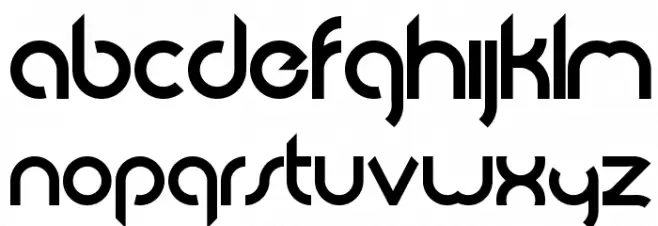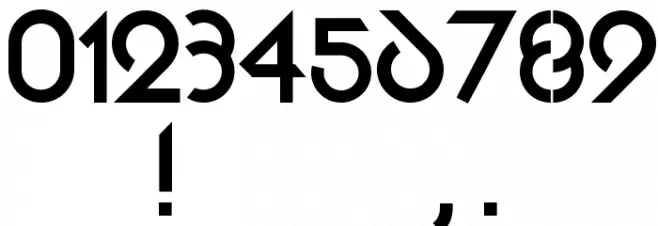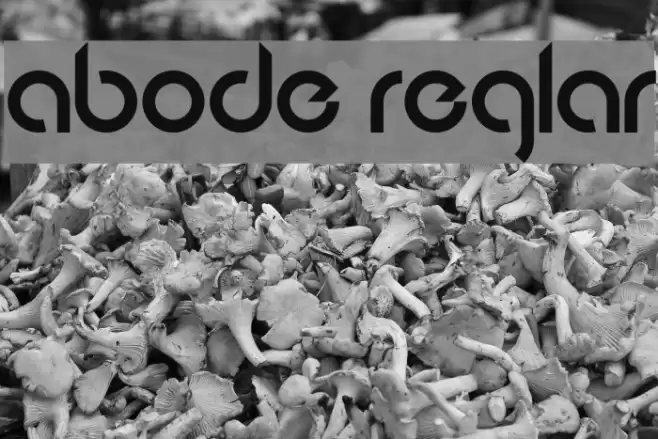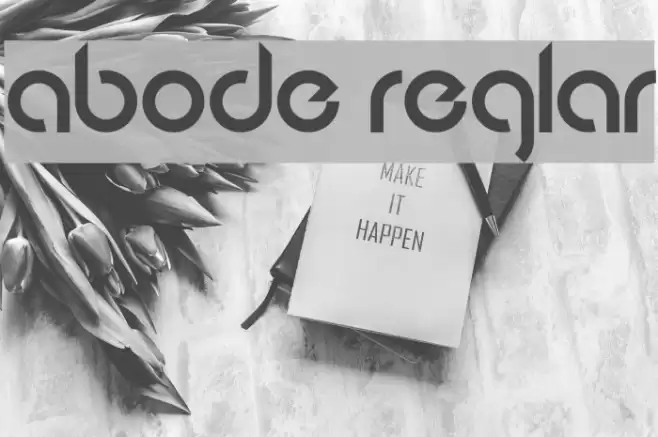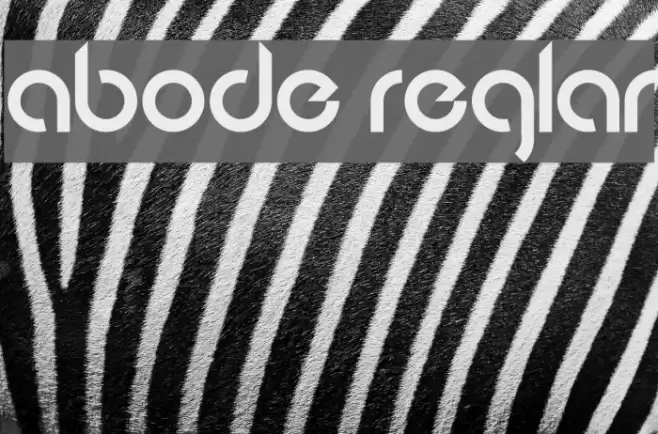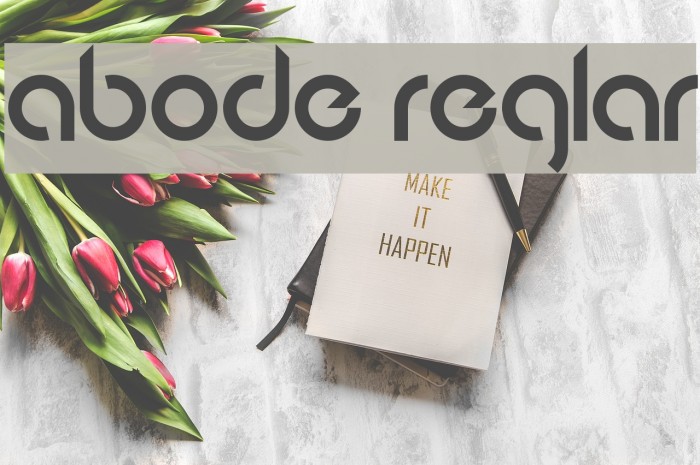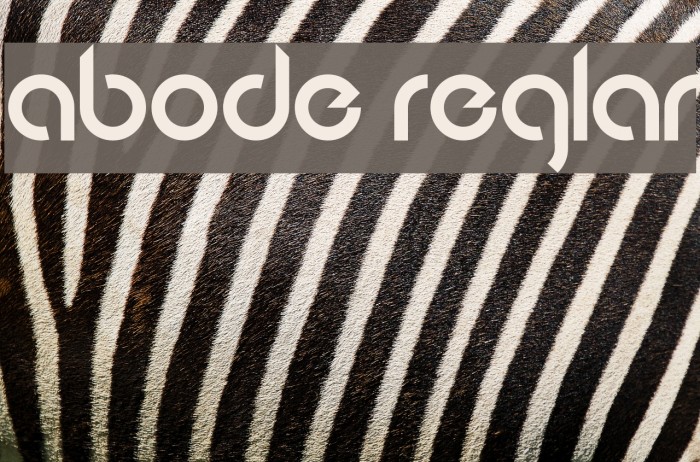
Abode Regular
This font features a modern and geometric design with a unique blend of curves and sharp angles. The characters are bold and have a futuristic appeal, making them stand out with their distinct style. The uppercase and lowercase letters maintain a consistent height, contributing to a uniform appearance. The numerals and special characters are designed with the same geometric precision, adding to the font's cohesive look. The overall style is sleek and contemporary, suitable for various creative applications.
A modern, geometric font with bold, futuristic characters.
- Proposed Projects: Ideal for branding, logos, posters, and digital media where a modern and striking appearance is desired.